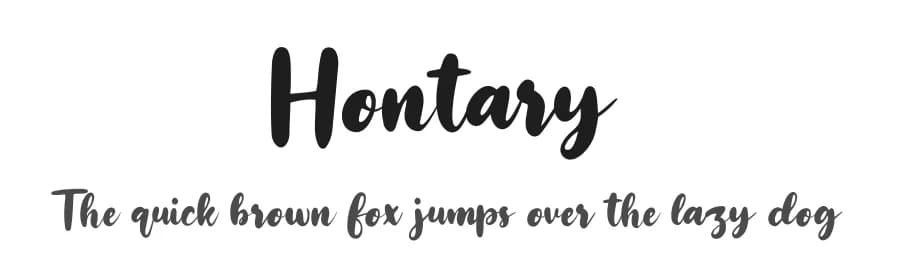
About Hontary Font
Hontary is an equally charming and elegant handwritten font. It will add a layer of authenticity to any design project.
Hontary Specifications
| Font Family | Hontary |
| Full Name | Hontary |
| Glyph Count | 194 glyphs |
| PostScript Name | HontaryRegular |
| Designer | Akhmad Reza Fauzi |
Hontary Font is a script font that shines as a display or heading face. Pair it with a clean sans-serif or serif font for body text β the contrast creates a clear hierarchy while the two styles stay balanced and easy to read.
Hontary Font